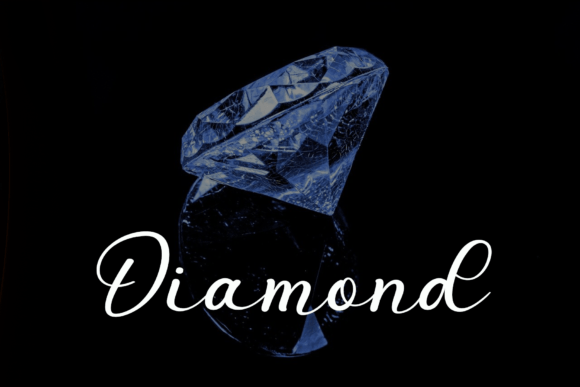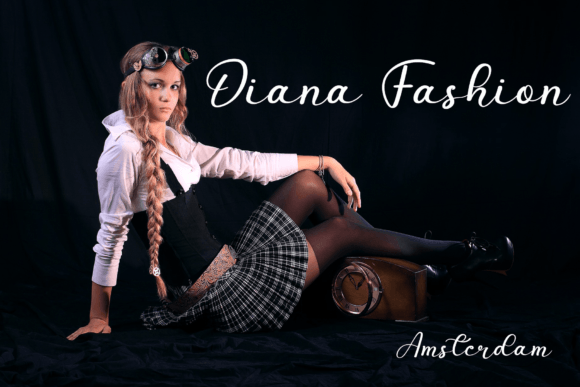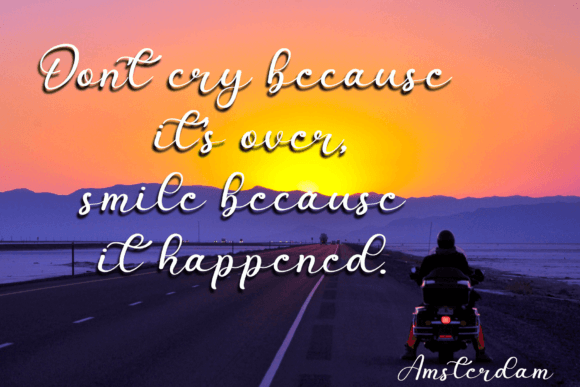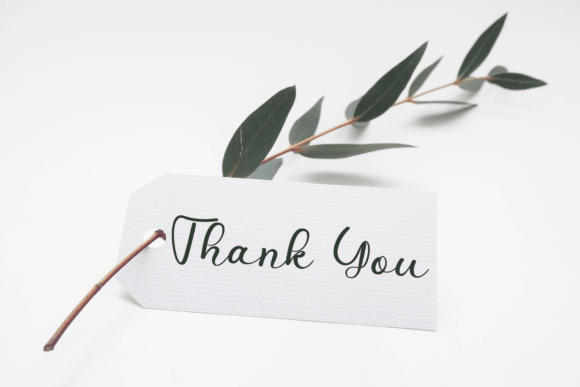
Handmade Beautiful Font
About Handmade Beautiful Font
“Handmade Beautiful” is a captivating handwritten font that seamlessly blends a contemporary atmosphere with impeccable form, drawing inspiration from timeless classic calligraphy. This font, with its carefully crafted design, strikes a perfect balance—neither too thin nor too thick, offering a varied and balanced appearance that enhances the beauty of any project it graces.
One of the standout features of “Handmade Beautiful” is its versatility. The font’s contemporary style makes it suitable for a wide range of design applications. Whether you’re working on a logo, invitation, branding material, or any other creative project, this font has the adaptability to elevate your design to extraordinary heights.
The careful craftsmanship of “Handmade Beautiful” is evident in the thoughtful consideration given to each stroke. The font maintains a timeless quality, providing a classic calligraphic touch that transcends trends. The balance between thick and thin strokes ensures not only aesthetic appeal but also readability, making it an ideal choice for projects where both style and substance matter.
What sets “Handmade Beautiful” apart is its ability to breathe life into any design. The font’s varied and balanced form adds a touch of sophistication, making your projects visually appealing and captivating. Whether you’re designing for print or digital media, the font’s PUA encoding ensures easy access to its entire set of glyphs and swashes, providing creative freedom for your designs.
Consider using “Handmade Beautiful” for a range of creative endeavors, from crafting elegant wedding invitations to designing eye-catching branding materials. Its contemporary yet timeless aesthetic makes it a reliable choice for designers seeking a font that can seamlessly adapt to diverse projects.
In conclusion, “Handmade Beautiful” is more than just a font; it’s a design tool that enhances the beauty of your projects. Its stylish, handwritten charm, coupled with impeccable craftsmanship, makes it a valuable asset for designers looking to create extraordinary and visually stunning compositions. Explore the possibilities with “Handmade Beautiful” and infuse your designs with a touch of timeless elegance.